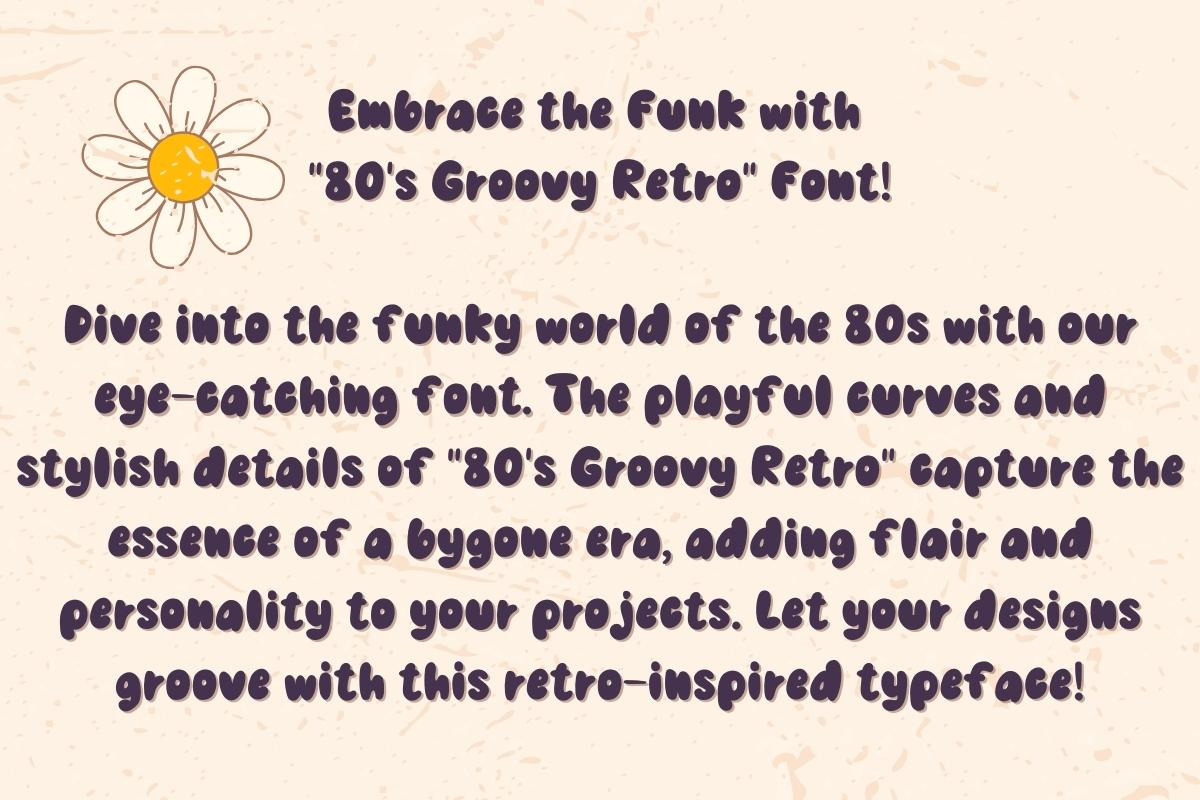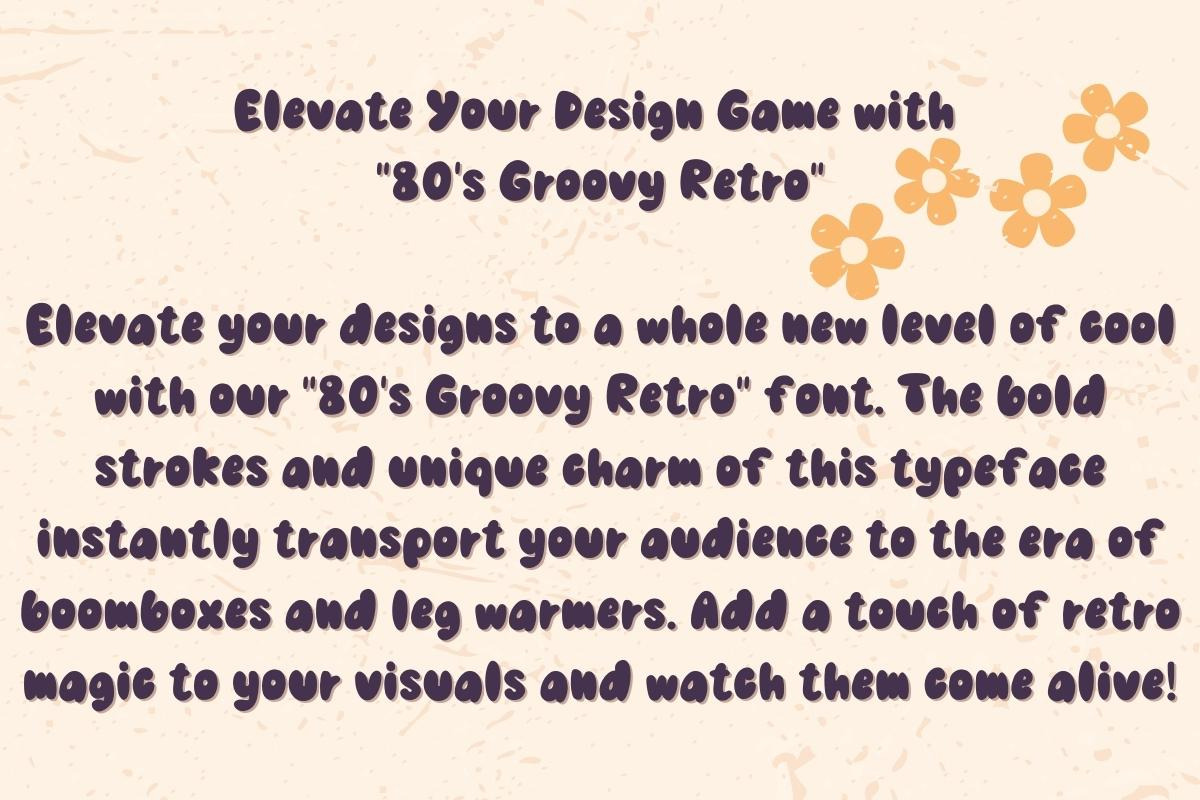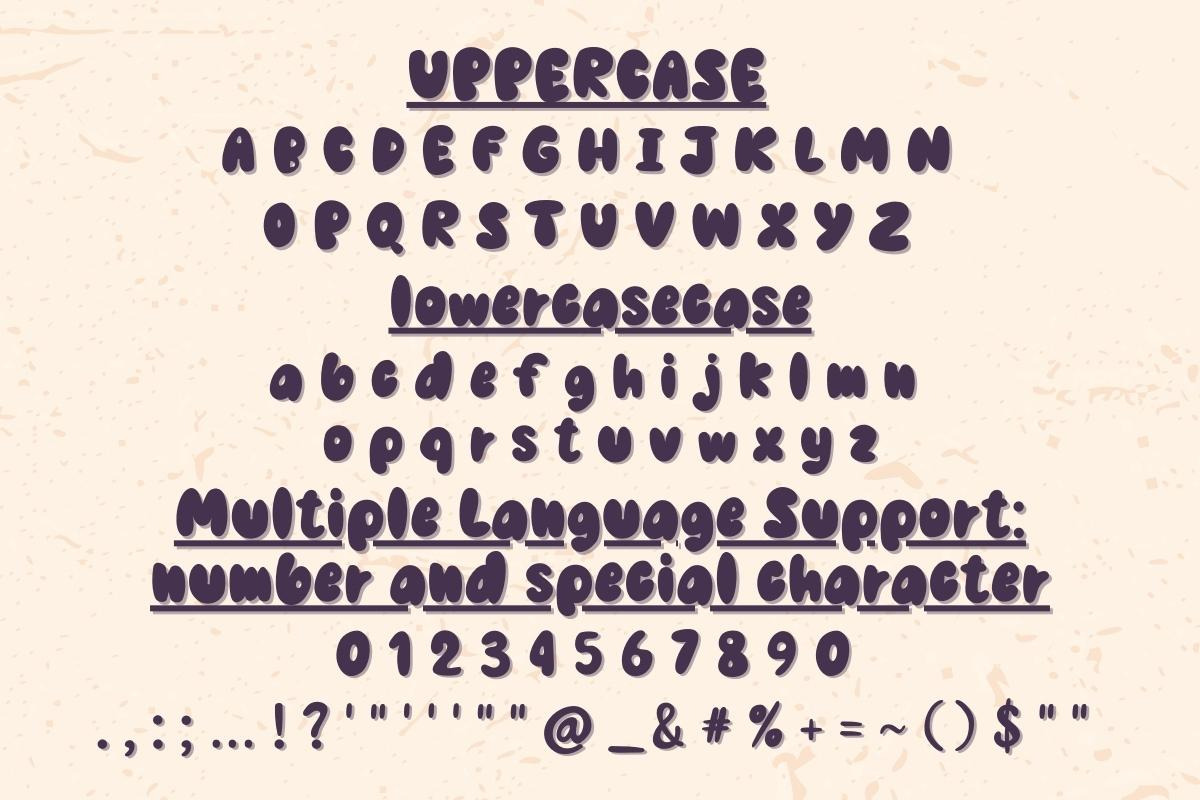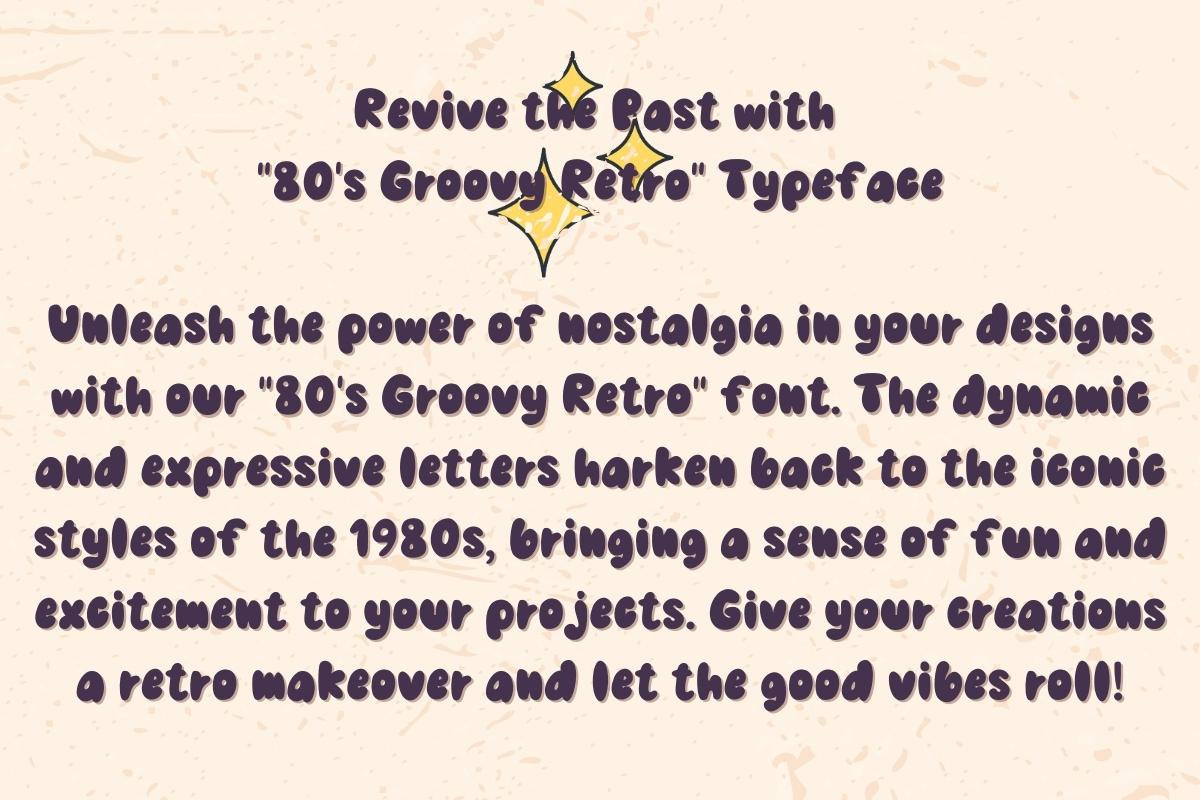
80s Groovy Retro - Handwritting
Step back in time with "80's Groovy Retro" font! Transport yourself to the vibrant and energetic era of the 1980s with our meticulously crafted font. The bold, curvy letters of "80's Groovy Retro" bring a touch of nostalgia to your designs, invoking the spirit of neon lights and disco vibes.